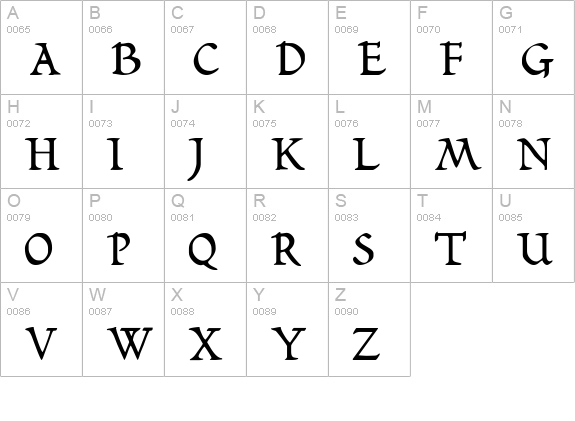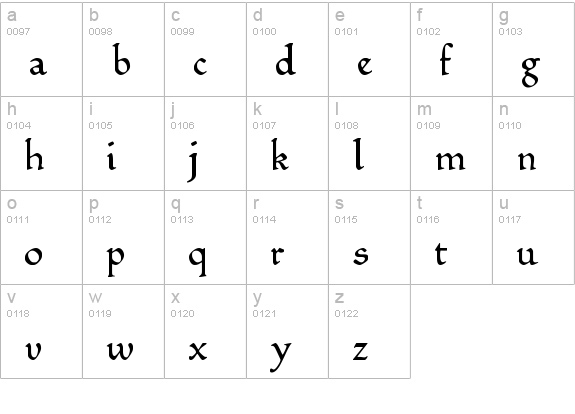
BilboDisplay Bold Font Details
BilboDisplay Bold is a strong, high-contrast variant in the BilboDisplay typeface family \xE2\x80\x94 well suited to headlines, attention-grabbing titles, and strong calls-to-action.
BilboDisplay Bold font is a stunning and elegant typeface that exudes sophistication and charm. Its bold and distinctive letterforms make a strong statement, perfect for headlines, titles, and other prominent text elements. The flowing curves and sharp serifs of BilboDisplay Bold add a touch of flair and personality to any design project. Best of all, BilboDisplay Bold font is available for free download at FontsMarket.com. Whether you're working on a creative project, branding, or any other design endeavor, this font is a fantastic choice to make your text stand out. Download BilboDisplay Bold today and elevate your designs with its timeless elegance and visual impact.